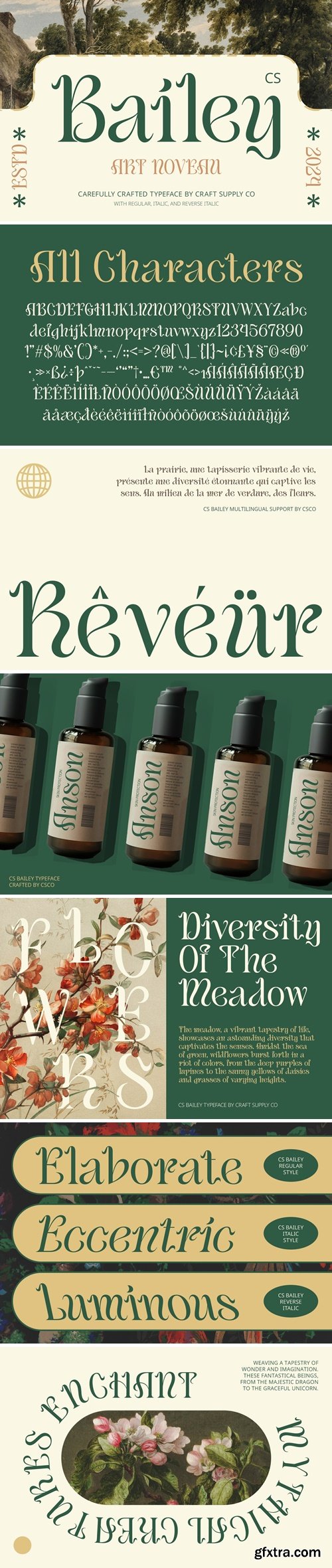
CM - Rainfolk - Classic Minimalist Serif 288859463
Rainfolk is a classic and minimalist serif with touch of elegancy and luxury. This font aslo comes with true italic version that will make your design even more stunning. With true italic version, you can use this font family for any purposes such as wedding invitations, logo, and branding. And if you are searching for timeless display serif, this font is what you need. Rainfolk also support multi language!
Bandoe - Bold Round Display Font
"Bandoe" is a striking font characterized by its bold, rounded characters and geometric design. Each letter, both uppercase and lowercase, maintains a consistent thickness, creating a harmonious and balanced visual effect. The uppercase letters are large and blocky, demanding attention with their strong presence. In contrast, the lowercase letters are slightly more compact, exuding a playful yet modern feel. The clean lines and uniformity of Bandoe ensure it is both visually appealing and easily readable, making it ideal for a variety of design applications.
CM - Tronet - Sans Retro Font 289303527
This font is characterized by reflecting joy, cheerfulness and a light atmosphere with a handwritten style often found in comics or cartoons. This font is perfect for projects that want to highlight elements of playfulness and fun, such as poster designs, invitation cards, comics, or promotional materials aimed at a younger audience or those looking for a fun feel.
CM - Greyfold - Modern Blackletter 287928779
In the heart of design, where old-world craftsmanship meets modern ingenuity, Greyfold emerges. Inspired by the gothic allure of fraktur, this blackletter font carries centuries of history, yet is reborn with a contemporary edge. Each curve and swash is crafted to echo the elegance of the past while carving a path toward the future of design.
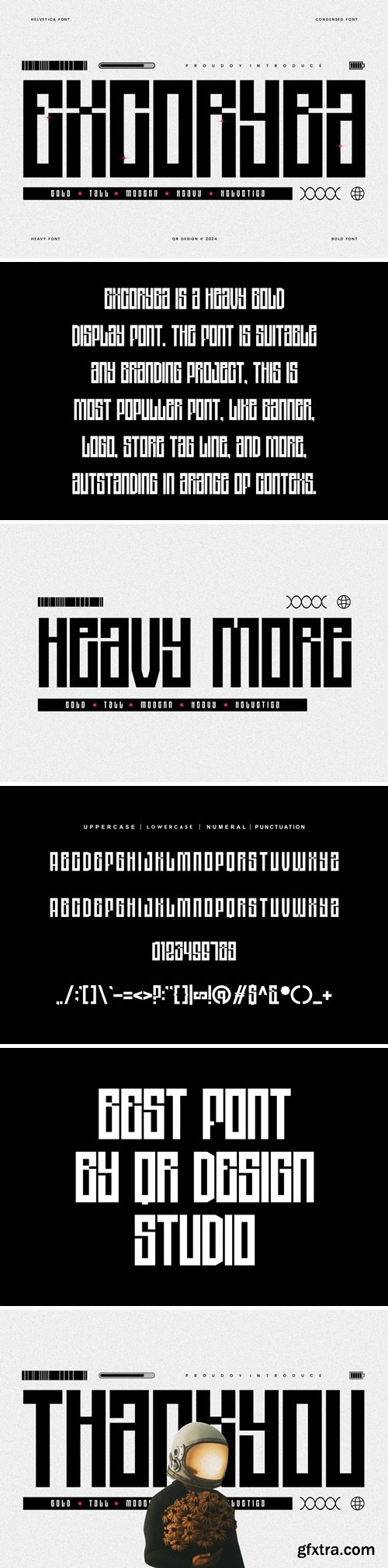
CM - Excoryba - Futuristic & Tall Font 288770896
Excoryba Font is a bold and authentic display font. The font is suitable for any branding project like poster, logo, sport, and many more. Outstanding in a wide range of contexts.
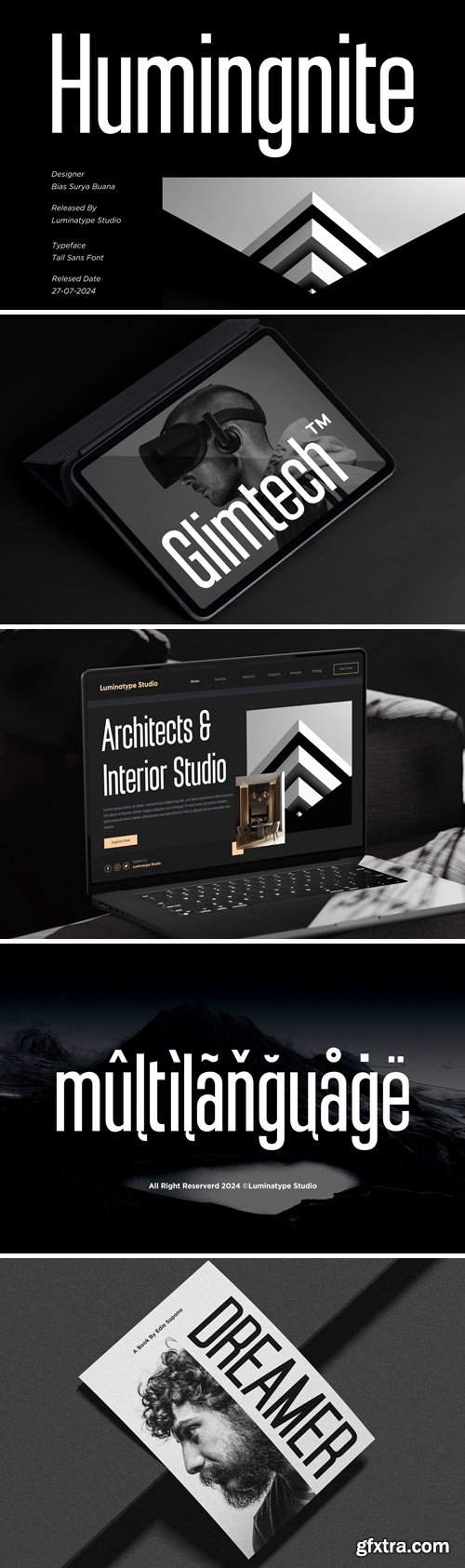
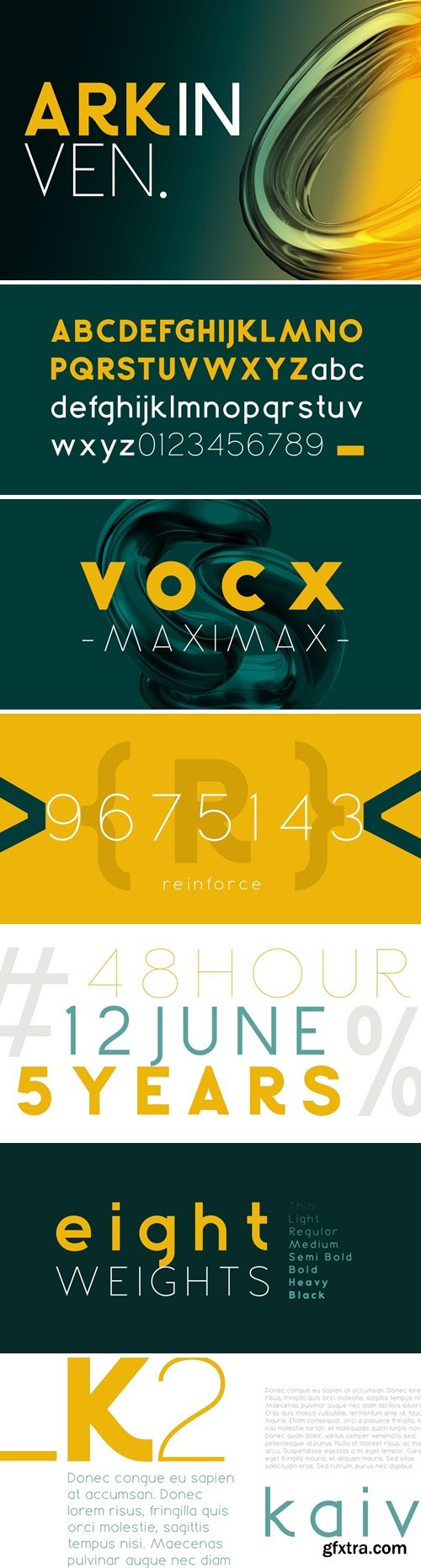
LT Humingnite
Discover the elegance and whimsy of our Tall Sans Serif font; an ideal accompaniment for standout logos and high-impact branding. With its towering characters and light-hearted appeal, it injects a delightful energy into any design. This distinctive font elevates your creative endeavors while maintaining a playful touch. Display your distinct style with the charming blend of height and humor that Tall Sans Serif brings to the table.
Arkinven Font
Arkinven is a clean, modern and minimalist font family that suitable for many purpose. It,s very versatile in use from small text to big display. It comes with 8 weights :
Hemmo Rounded Sans Font TR7RLJP
Hemmo Rounded Sans Font
CM - Ramonad || Slab Serif Display Font 288825874
Introducing Ramonad The New Slab Serif Unique Display Font is a modern, trendy, can be use logotype and futuristic display font. It has a unique character. It is perfect to be combined with invitation card designs, company logos, movie titles, movie names, business cards, book titles, brand names and various other designs.
Boltruin – SciFi Futuristic Display Font 8HQDVWL
Boltruin – SciFi Futuristic Display Font
Noble Elegant - Luxury Serif Swash Logo Font
Noble Elegant is a high-class serif font that combines traditional serif elegance with a modern twist. Featuring unique swashes and subtle echoes, this font brings a touch of sophistication to every project. Perfect for luxury branding, refined logos, editorial layouts, and wedding stationery, Noble Elegant stands out with its graceful curves and distinct style. Designed to add a luxurious feel to any text, this font is versatile for both vintage and contemporary aesthetics, making it an essential choice for designers seeking refinement and style.
Galbite - Pixel Font ZR3MEYE
Galbite - Pixel Font
Elegant Font - Warren 8WUTJWG
Elegant Font - Warren
Wardel - Condensed Slab serif Typeface
Introducing our collection of bold and condensed slab serif fonts "Wardel". meticulously crafted to deliver a strong visual impact and distinctive character. Featuring unique angular cuts and pronounced serifs, this font creates a distinctive industrial aesthetic, making it the perfect choice for logos, headings, and branding that requires a retro or robust flair. Inspired by sports themes and vintage design elements, this font is suitable for a wide range of applications, including advertising, packaging, and digital media. Ideal for conveying a sense of strength and durability, it comes in various sizes and weights, providing maximum flexibility for designers.
Flowing Ornamental Forms CS Bailey – Art Nouveau Font is a display serif typeface that radiates beauty, elegance, and sophistication. Its flowing, ornamental forms and intricate details capture the essence of the Art Nouveau style, infusing designs with a timeless, graceful aesthetic.
Vasco – Blackletter Font 4XPQDGN
Vasco – Blackletter Font
Venora – Classic Font RKY4VEU
Venora – Classic Font